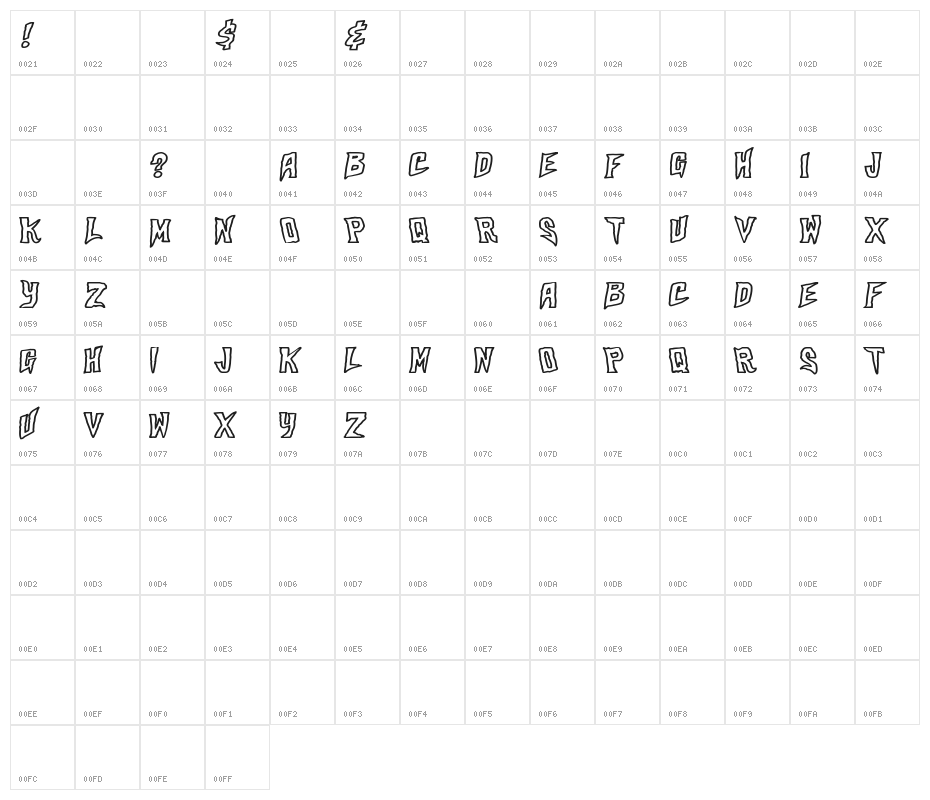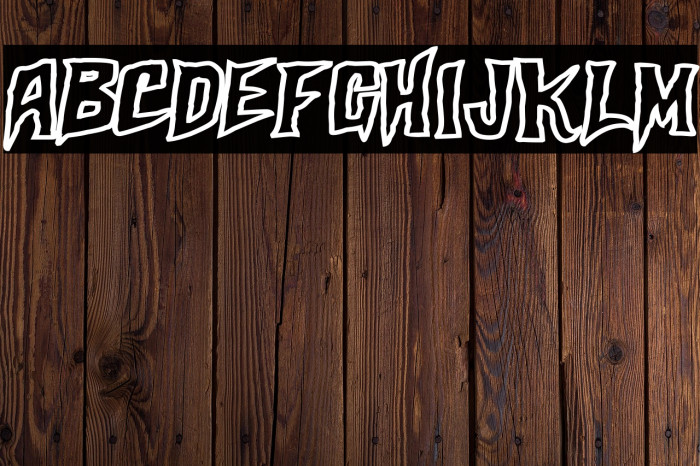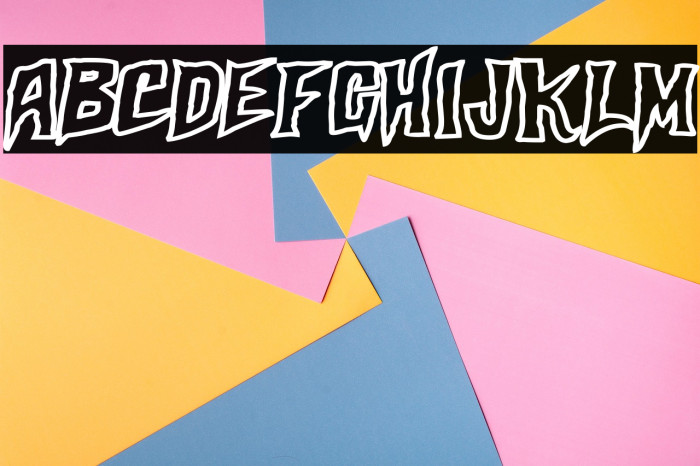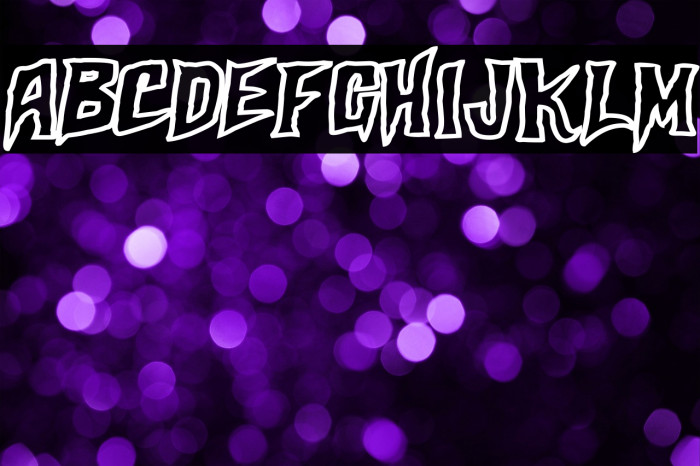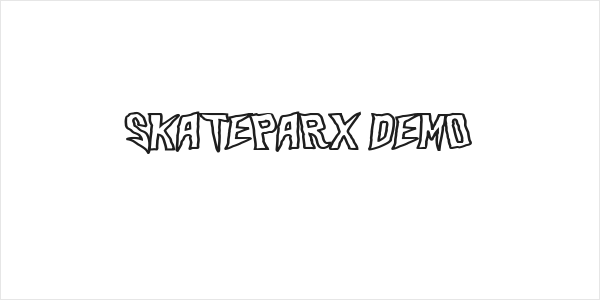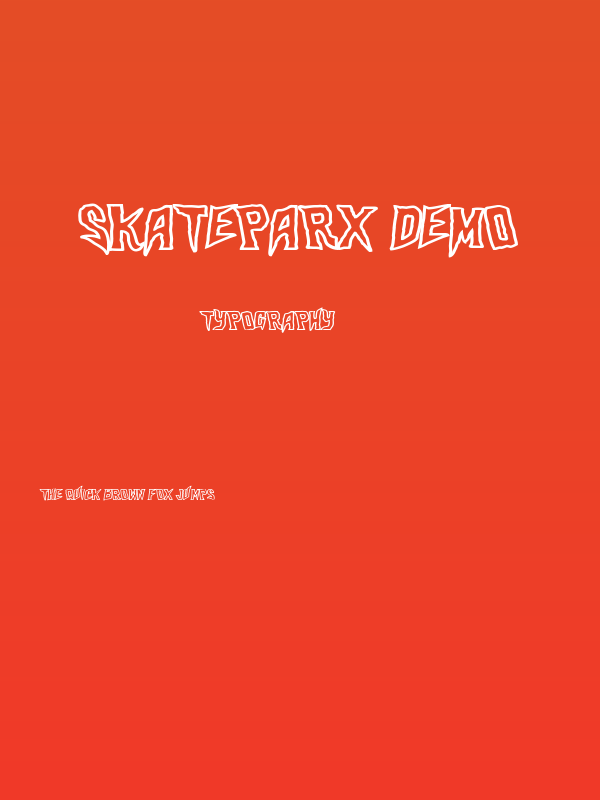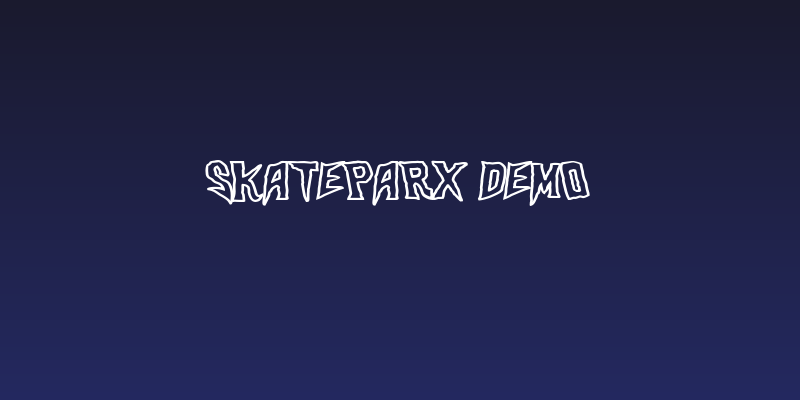
Skateparx Demo Font
Skateparx Demo Description
This font features a bold, edgy design with jagged, angular lines that give it a dynamic and energetic appearance. The characters have a hand-drawn, graffiti-like style, making them stand out with a rebellious and youthful vibe. The uppercase and lowercase letters maintain a consistent style, with sharp edges and irregular shapes that add to the font's unique character. The numbers and special characters follow the same aesthetic, ensuring a cohesive look across all elements. This font is perfect for projects that require a bold statement and a touch of urban flair.
| Overall Style | Modern, Urban |
| Use Case | Logos, Posters, Headlines |
| Proposed Projects | Ideal for streetwear branding, skateboarding event posters, music album covers, and urban-themed designs. |